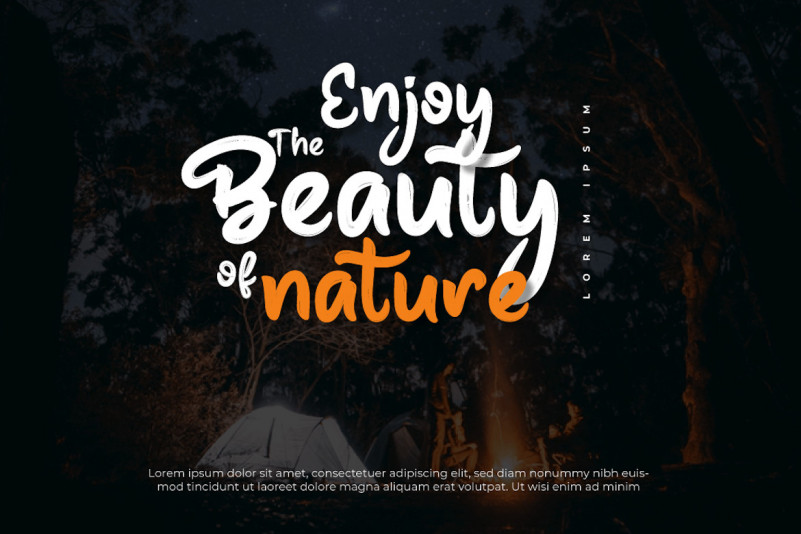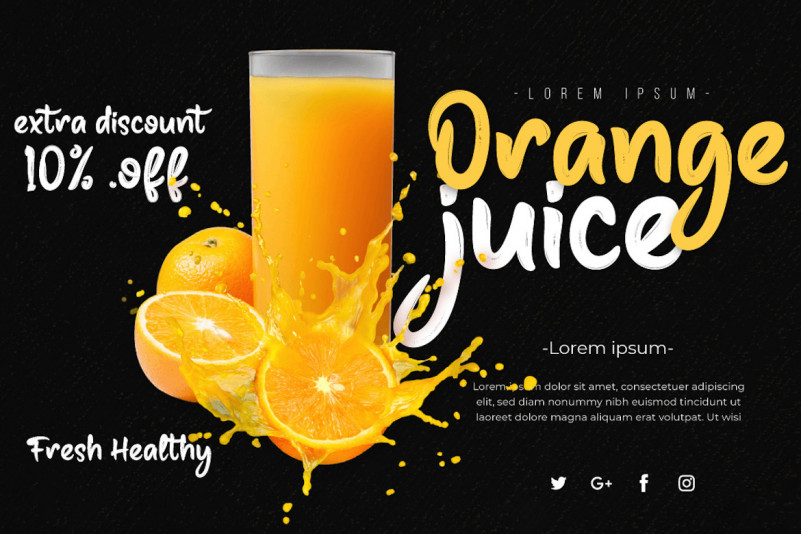
New Rocket Handwritten Font
New Rocket is a sweet and friendly handwritten font. Its natural and unique style makes it incredibly fitting to a large pool of designs. The only limit is your imagination!